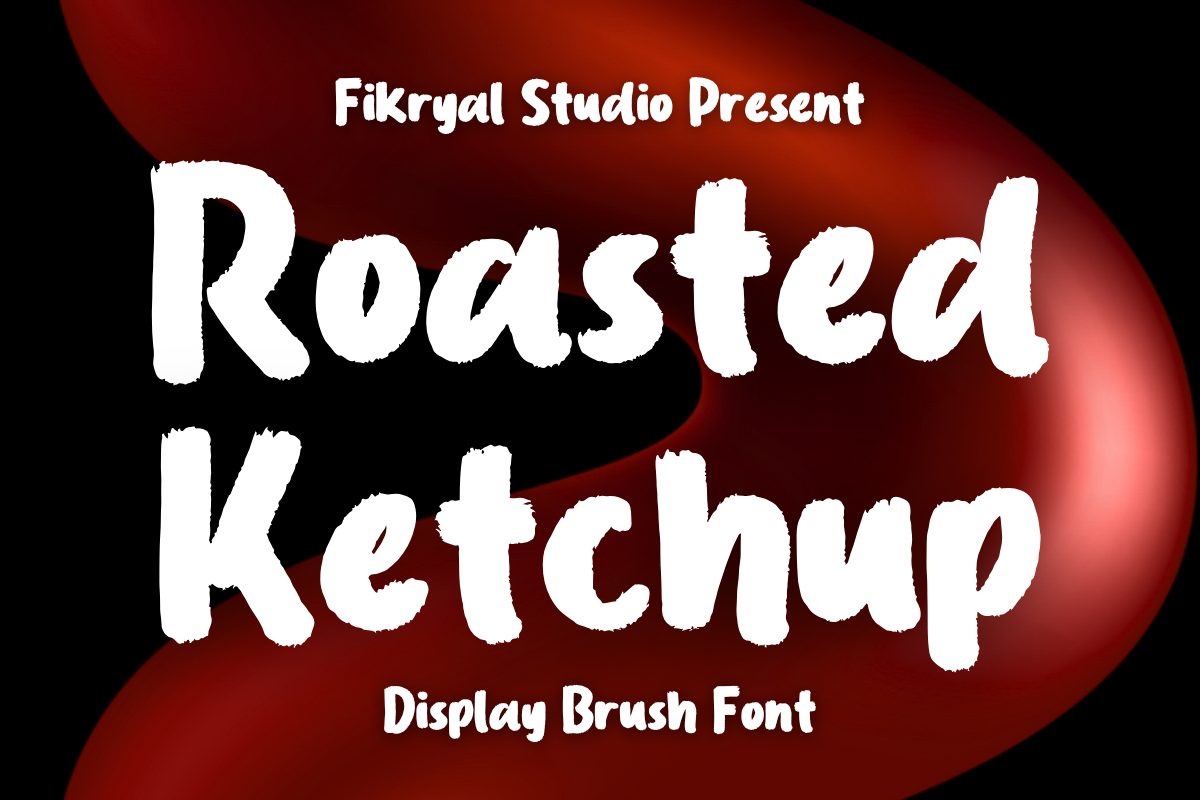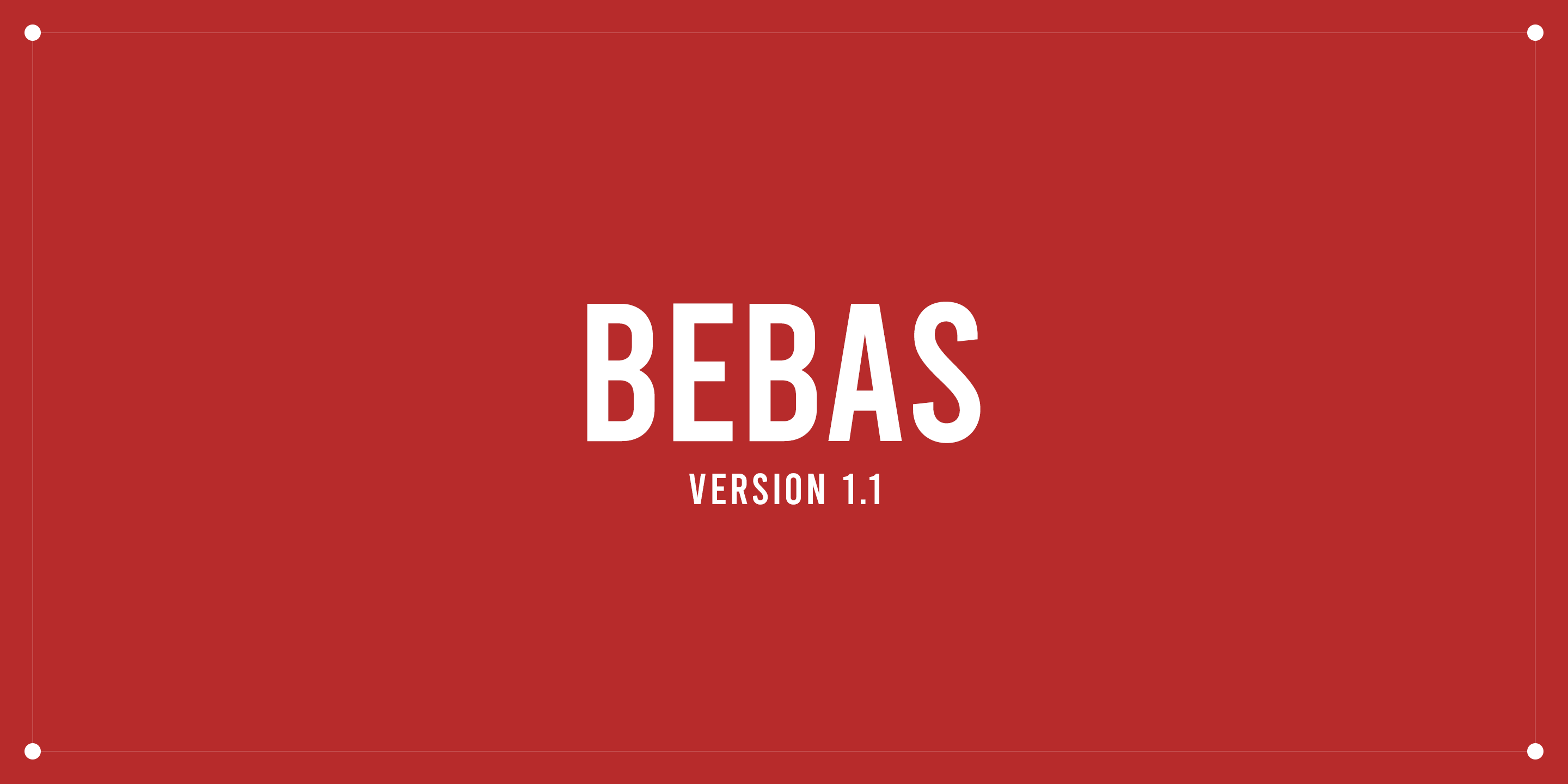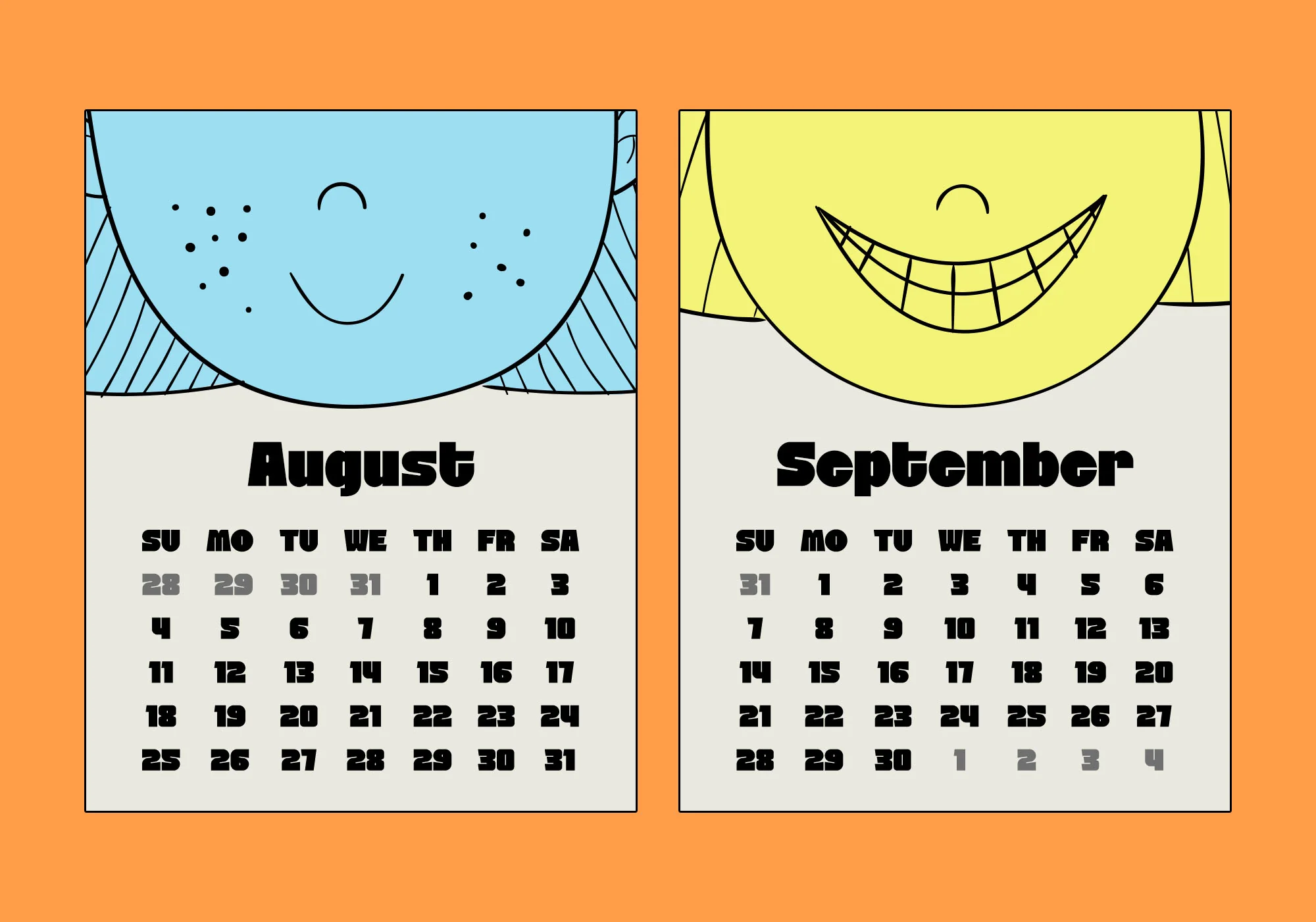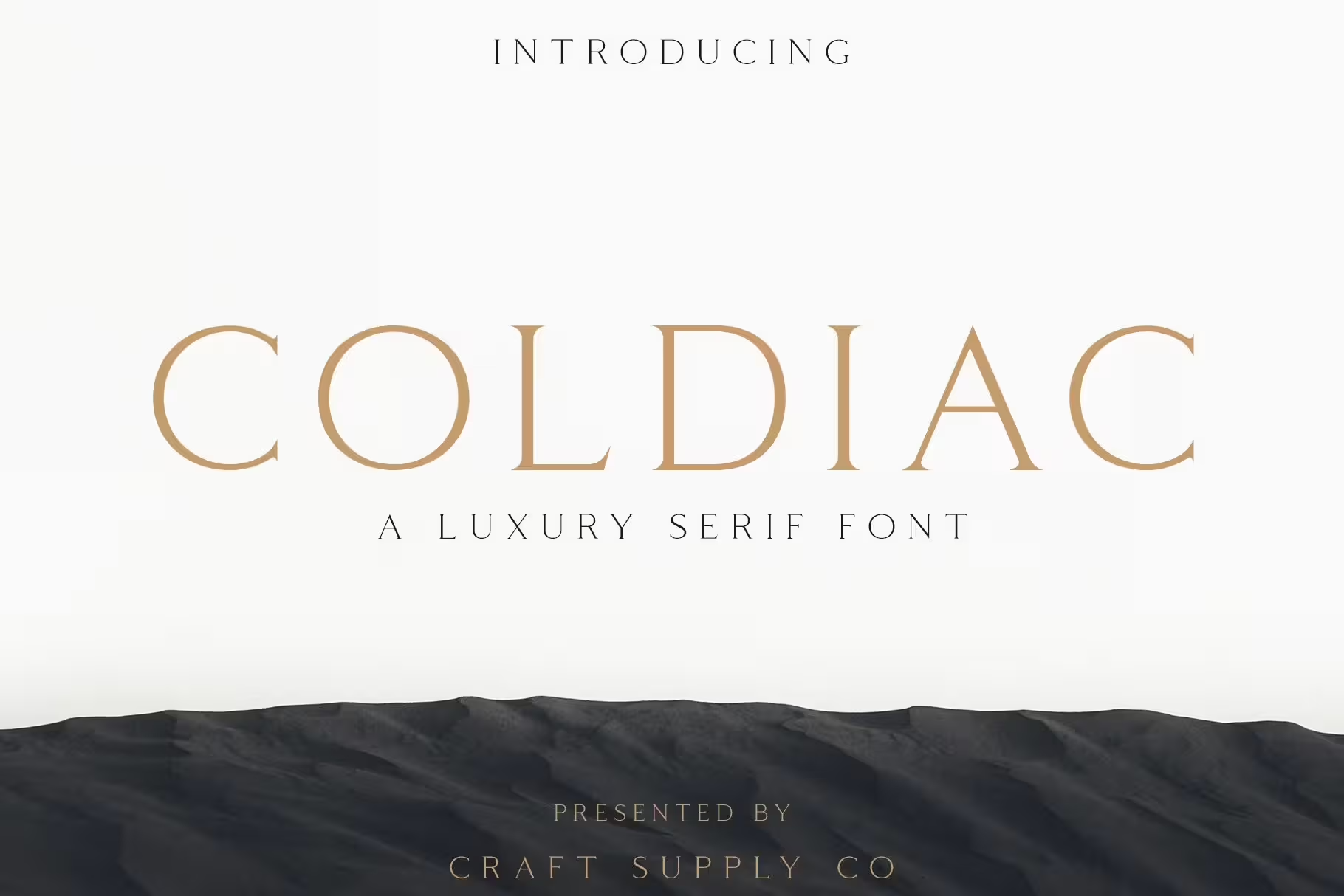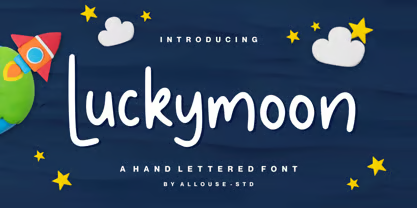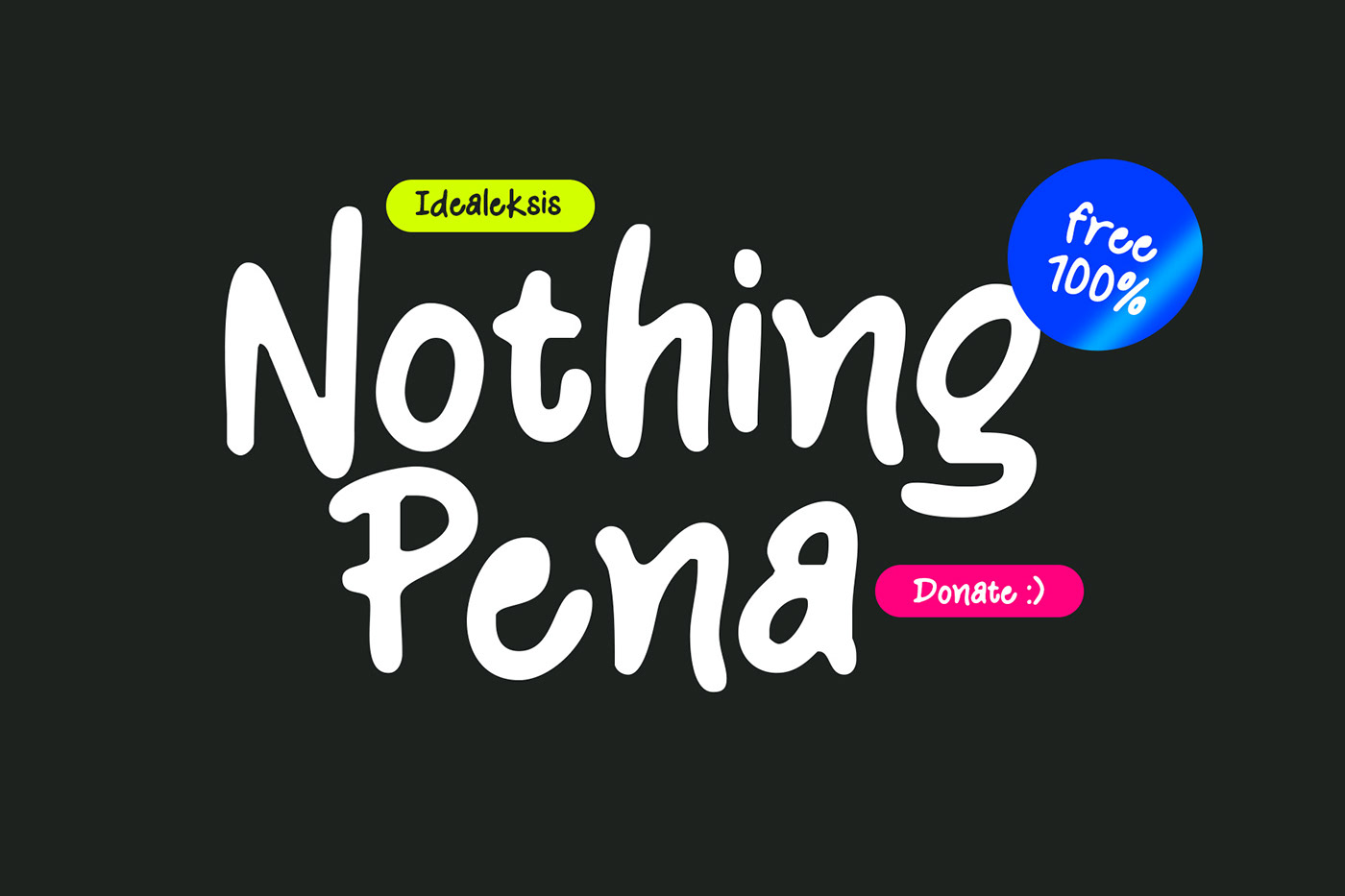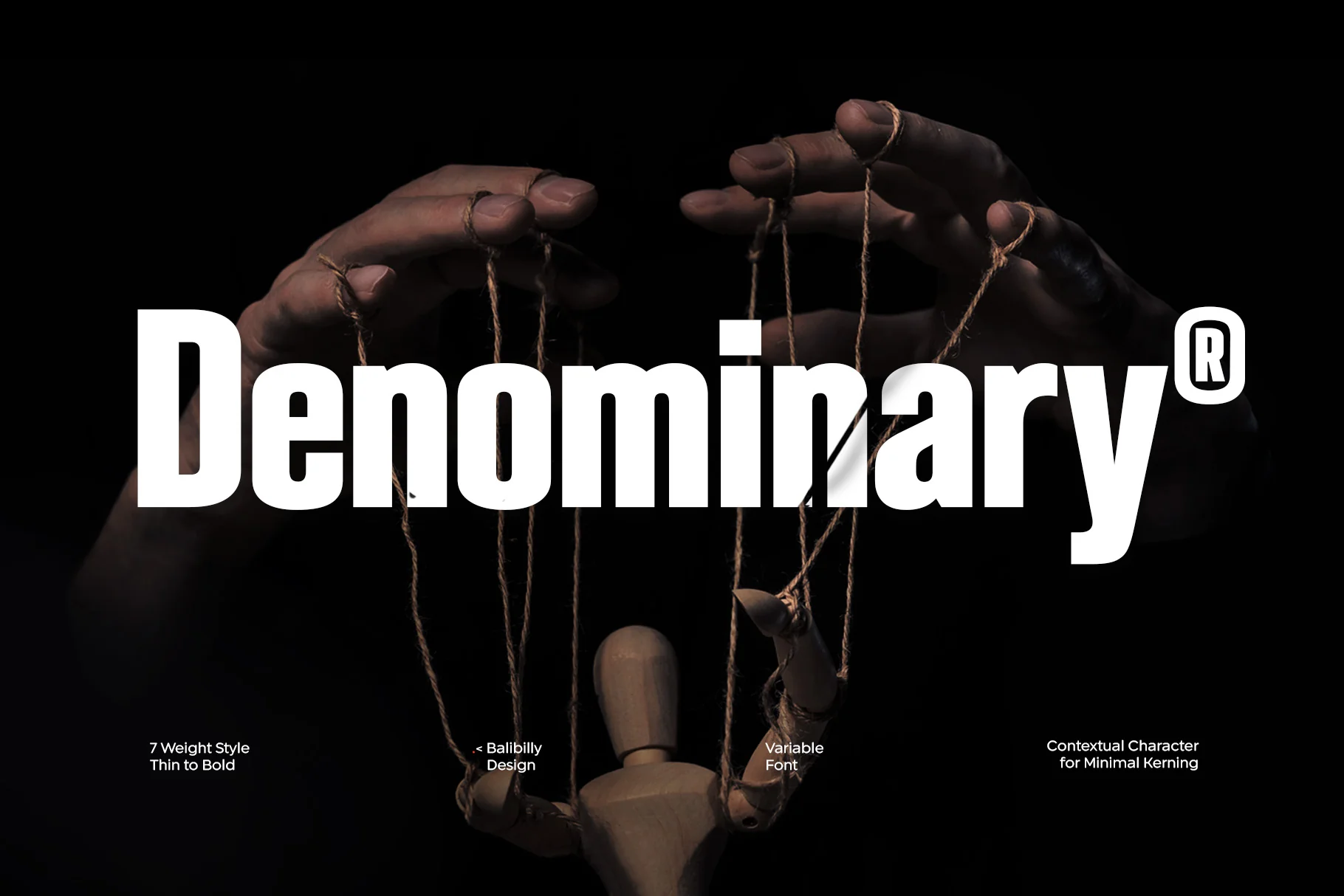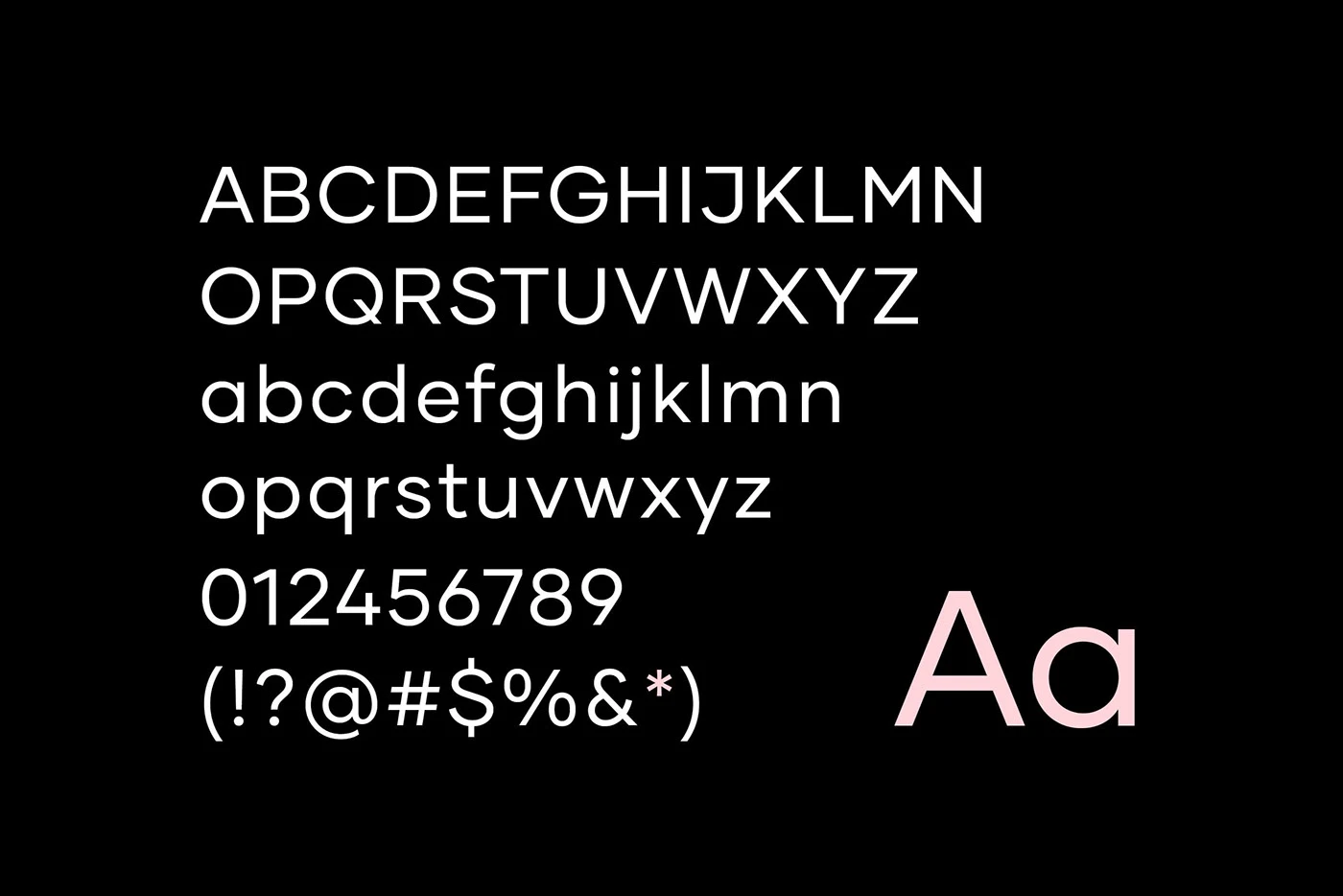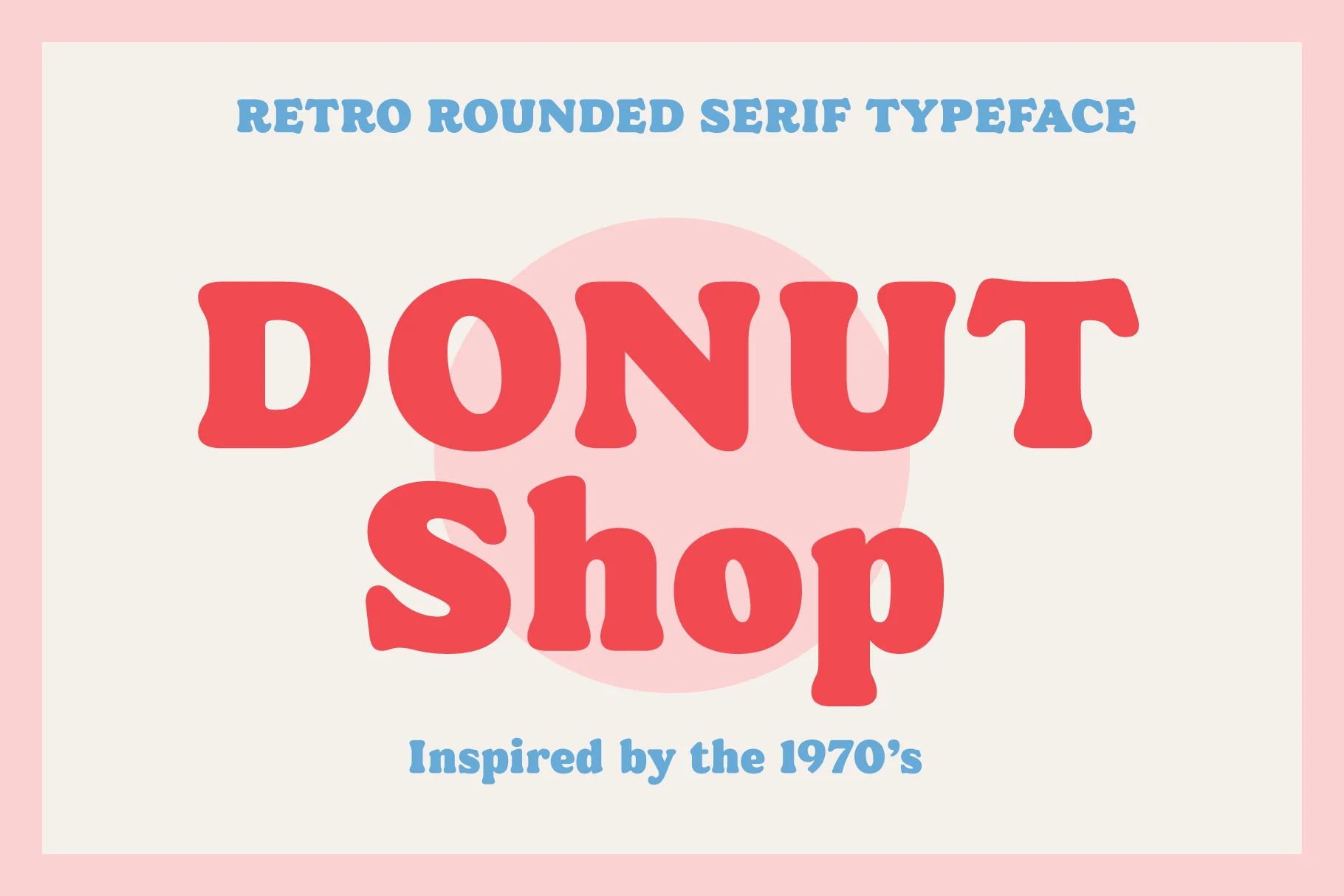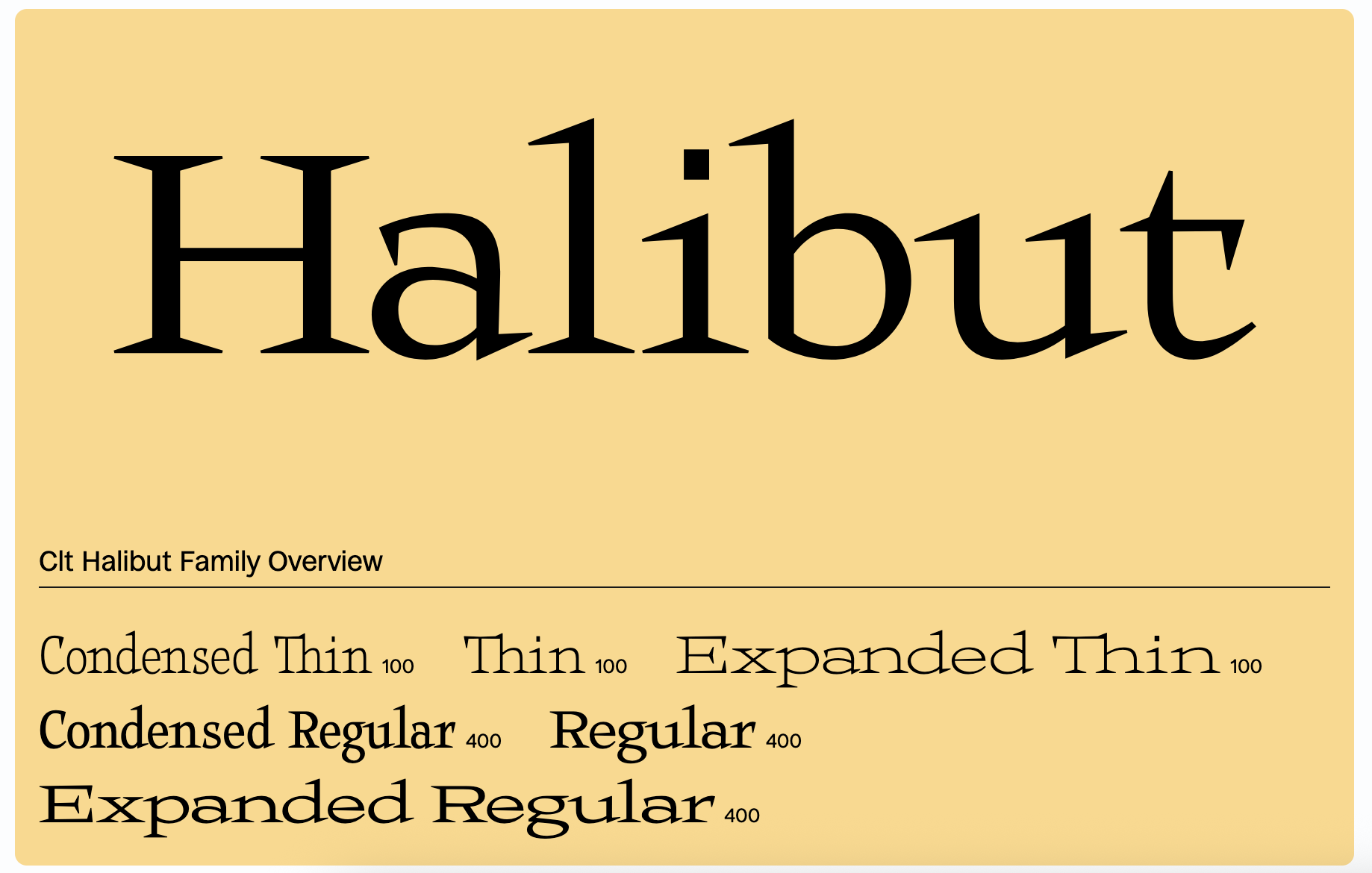
12 of the best fonts for posters
Discover the best fonts to add clarity and personality to your posters.
Posters are a dying artform. Or so one may presume to see the deluge of digital content littering our feeds.
But raise your head, look around. Look at the walls of derelict buildings and the boards at bus stops; at the pillars in your local music venue and the walls of your teenage niece’s bedroom. Posters are everywhere.
The way a poster looks matters but what it says often matters more. Arguably no creative choice is more important than the font that’s used. Is your brand trying to be cool or informative, helpful or hilarious? All of this and more can be conveyed by the right typeface.
The best kinds of fonts for posters are those that prioritise legibility from a distance while also conveying personality. While sans-serifs fonts are often chosen for headings and titles thanks to their clean, modern look, serif fonts can be used to add elegance or a classic feel.
The best fonts for posters
01. Montserrat
This font was designed by Julieta Ulanovsky as urban typography, inspired by the old posters and signs in the traditional neighbourhood of Buenos Aires called Montserrat. As a bold sans-serif font, it’s perfect for headlines as it offers both high impact and readability.
02. Nothing Pena
A modern, hand drawn font, Nothing Pena was created by designer Ideal Eksis. It can give posters a natural, organic feel as the letters have a soft curve and irregular forms. It lends itself well to posters with an eco or climate undertone to the messaging or creative projects needing the warmth of a human touch.
03. Halibut Serif
With its sharp edges and vintage feel, Halibut Serif will give your poster a sophisticated edge. Created by the Milan-based typographic practice Collletttivo, the supersized font family is ideal for daring designs that want to stand out.
04. Bebas Neue
An all caps font, Bebas Neue has risen in popularity for use across posters and social graphics. Tall and bold, its simple graphics make it easy to read at a distance and a great choice for impactful headlines. The font was designed by Ryoichi Tsunekawa of Dharma Type, and was originally released in 2005 as a free font to start a worldwide conversation with other designers.
05. Luckymoon
Sometimes it works to add a little whimsy to your poster designs. This is where Luckymoon comes in. A script font, its letters take on playful forms and gentle curves. Created by the three-piece Indonesian team at Allouse Studio, it’s lighthearted and childlike, suited for projects that are looking for that extra little something.
06. Alinsa
Bold, interesting and unlike any other font, Alinsa lends itself to a bright background and modern business. Designed by Uncarving Nation, Alinsa’s fresh and distinctive shape will make your poster stand up and shout out.
07. Gilmer
Simple, fresh lines are often all a poster needs to get its point across. Gilmer does just that. Created by Polish designer Piotr Łapa, the sans-serif font family contains six styles so has the versatility and refinement to be used across both headlines and body copy.
08. Coldiac
Looking for a little more luxury for your poster? Look to Coldiac from Craft Supply Co, a modern serif font family whose fine lines and sharp corners offer perfectly balanced drama and subtlety. A delicate, pretty font, it will bring a vintage feel to any design.
09. Denominary
Denominary typeface has been designed to bring precision and sophistication to any project, with its clean lines and tall lettering. Created by Bali-based Balibilly Design, the Denominary font has an advanced feature that sets it apart from others: auto-active contextual alternates. This is to auto minimise kerning between characters, ensuring there is always optimal spacing between letters.
10. Roasted Ketchup
With a name like this, how can you resist using Roasted Ketchup? A handwritten brush display script, it’s full of character, bringing an energetic feel to designs. Born out of Fikryal Studio, the font features both uppercase and lowercase letters as well as multilingual support. It’ll add a unique, handmade feel to your poster design.
11. Anton
Probably one of the more recognisable fonts, Anton was created by designer Vernon Adams as a reworking of a traditional advertising sans-serif typeface. It’s loud and neo-grotesque, offering a futuristic but business-like attitude to copy. Originally redesigned as a webfont, Anton will add recognition and weight to your messaging.
12. Donut Shop